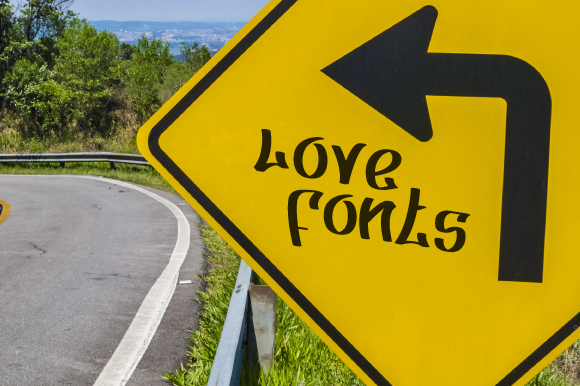
Type 2 Font
db-ku.com - Script & Handwritten -- Type 2 is a stylish graffiti font with hard edges. This font is great for urban designs or just to add a “Street” look to your creative projects.